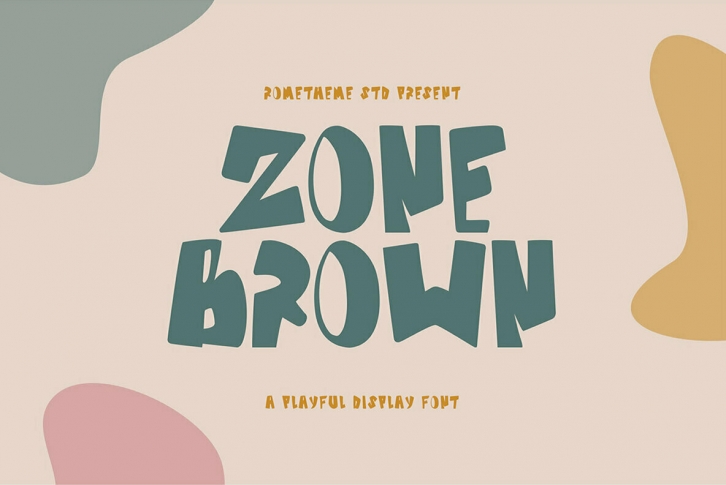
Zone Brown is a bold display font, this font looks funny, cute, kids, cartoon, playful, catchy and easy to use.
Zone Brown Font is the best choice for your professional design projects, including: logo, poster design, t-shirt, headline, flyer, cd cover album, quotes, business card, branding, magazines, social media, advertisements, product designs, or something that need playful or cartoon looks.